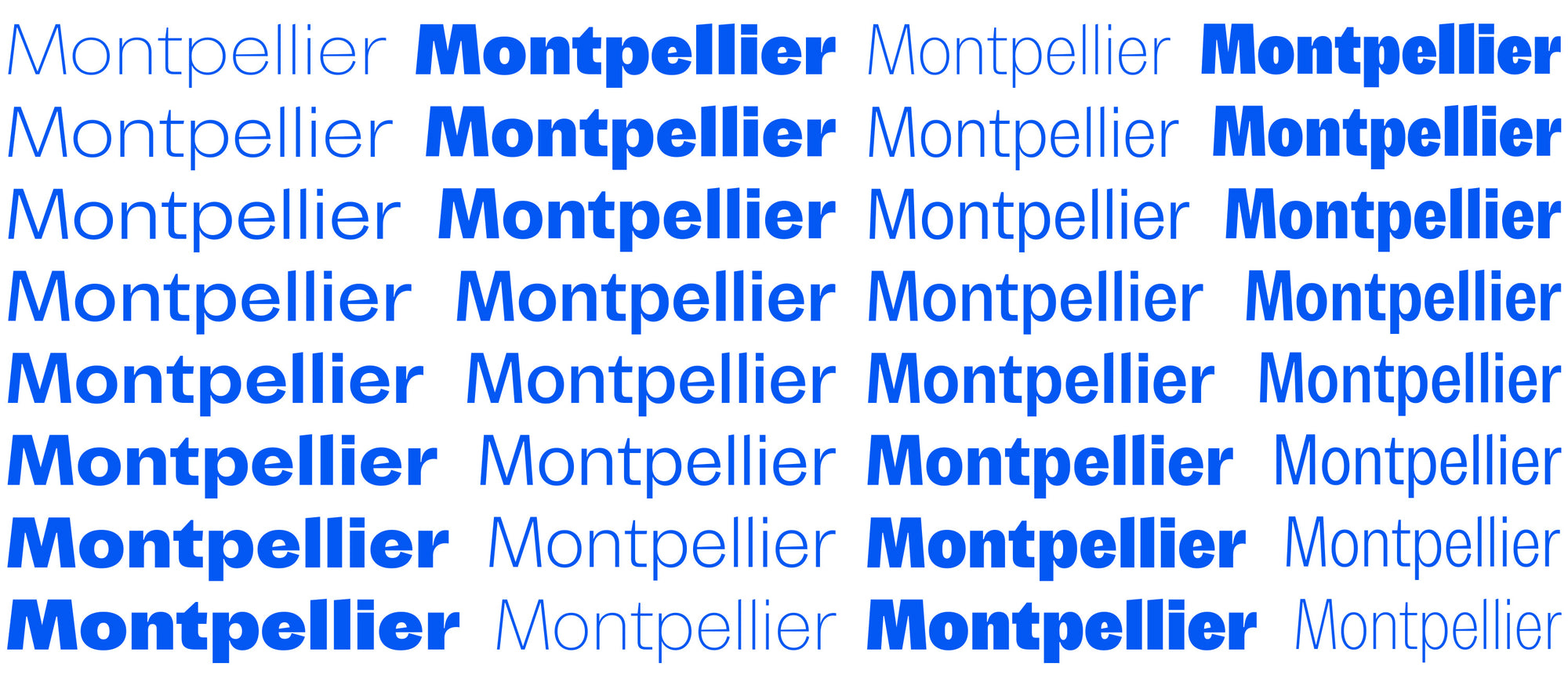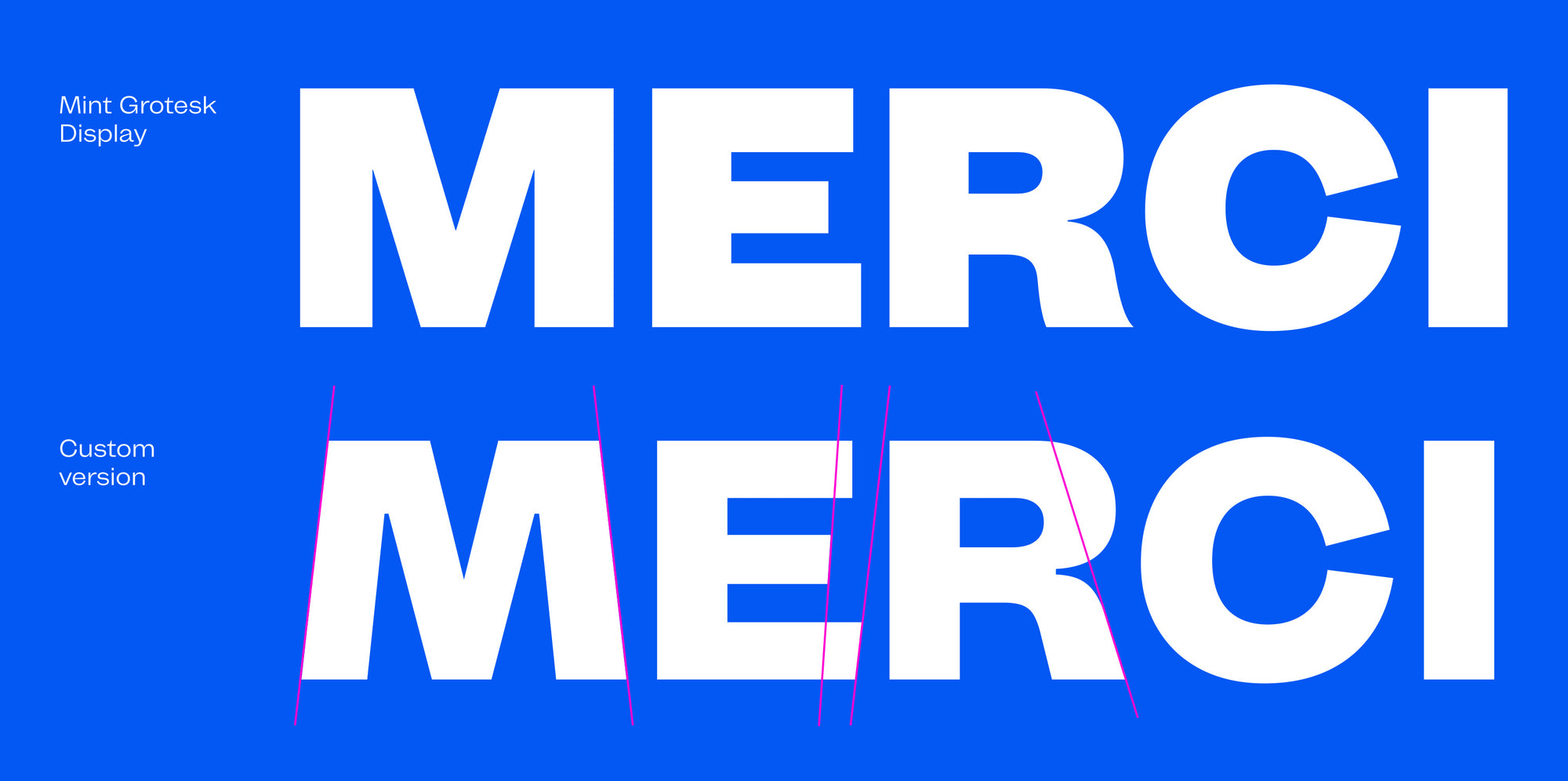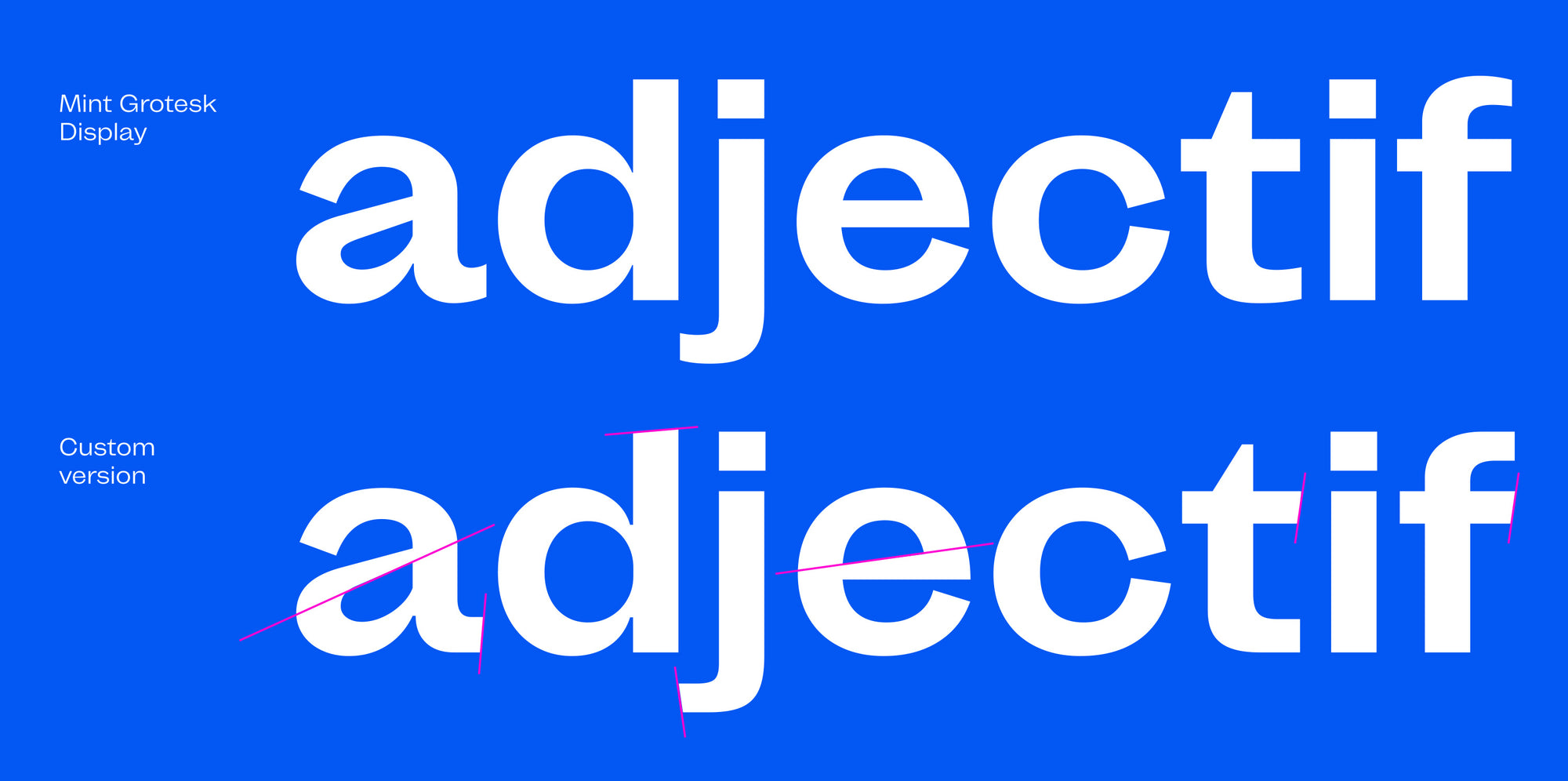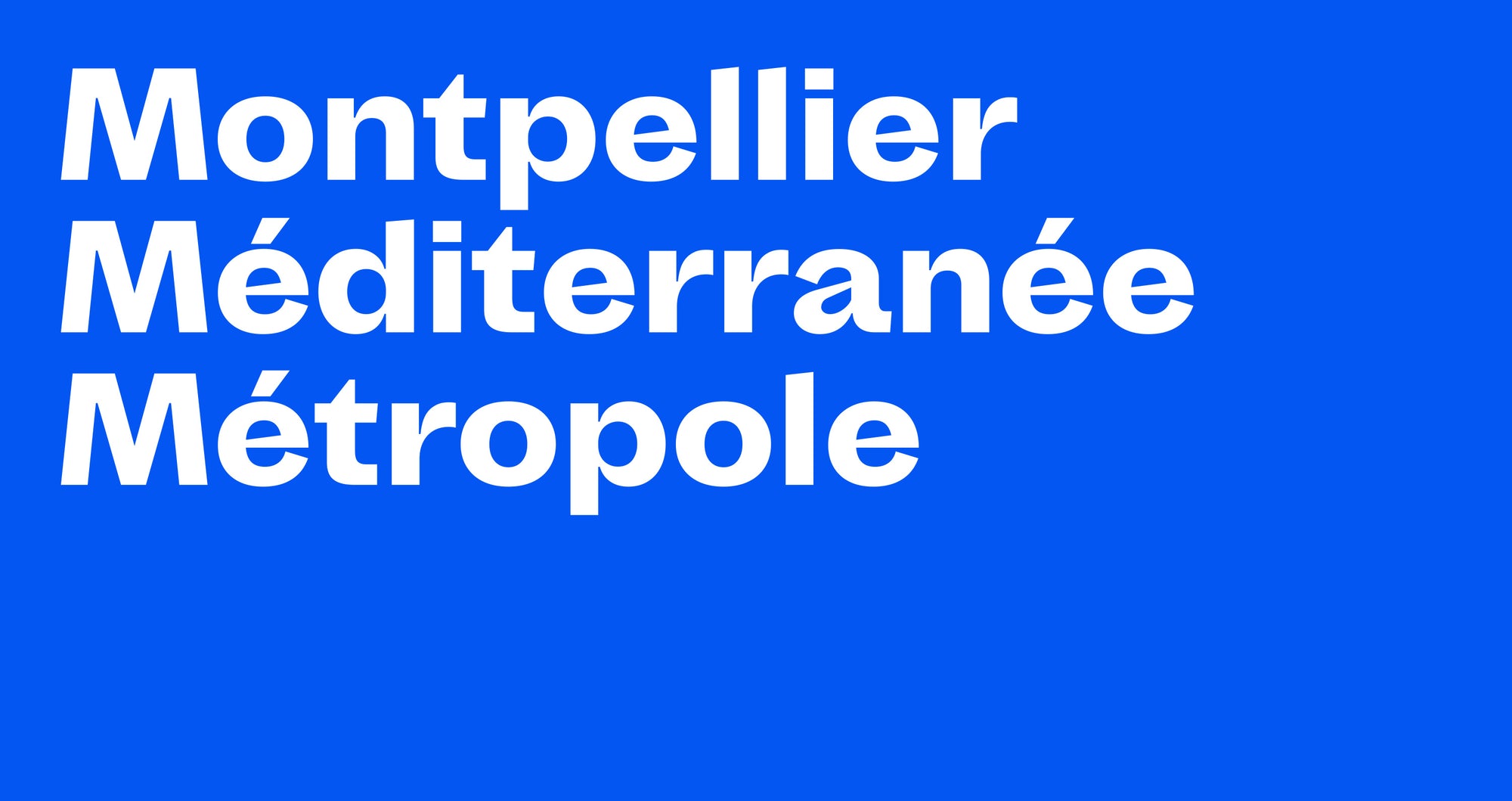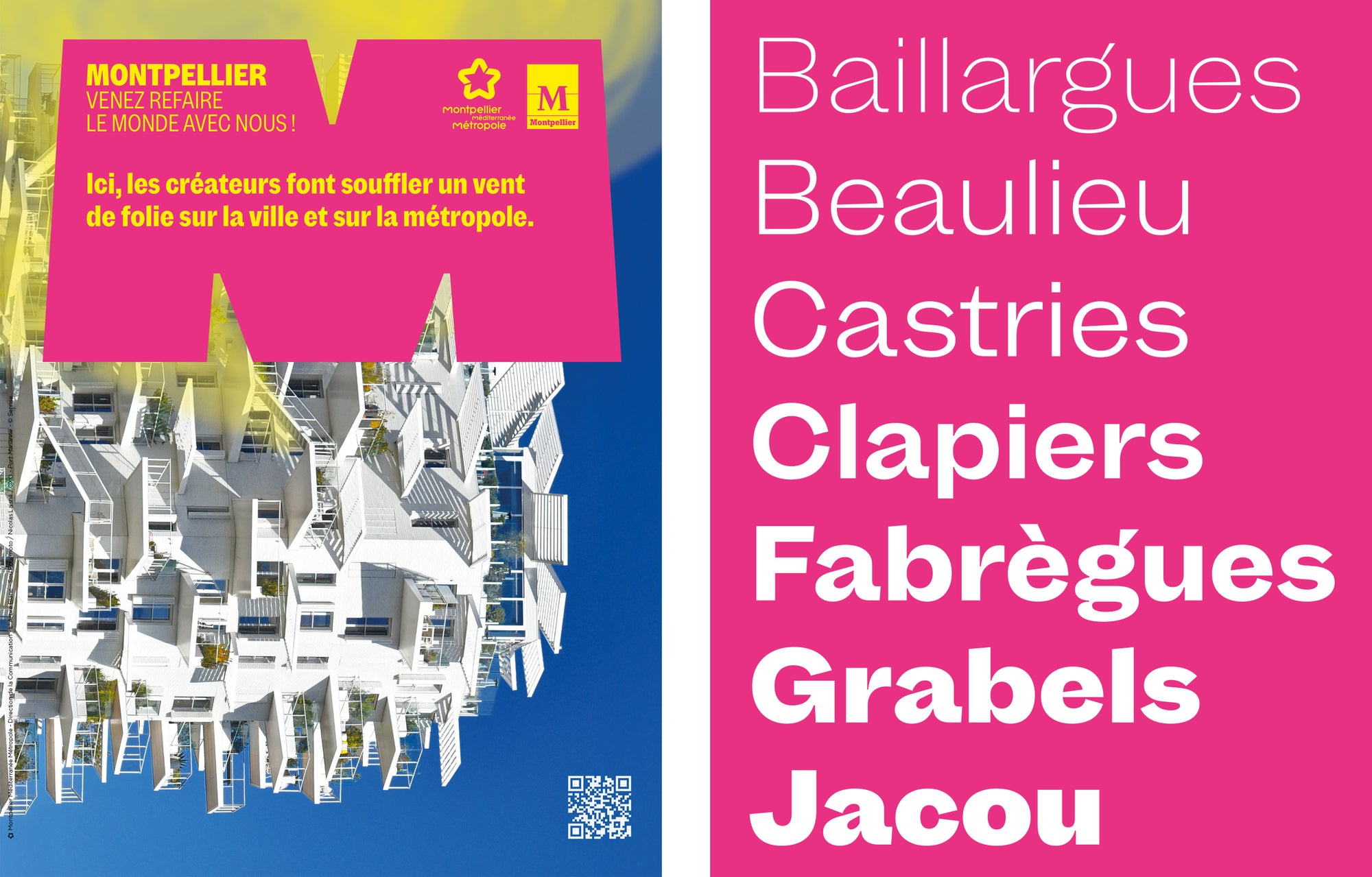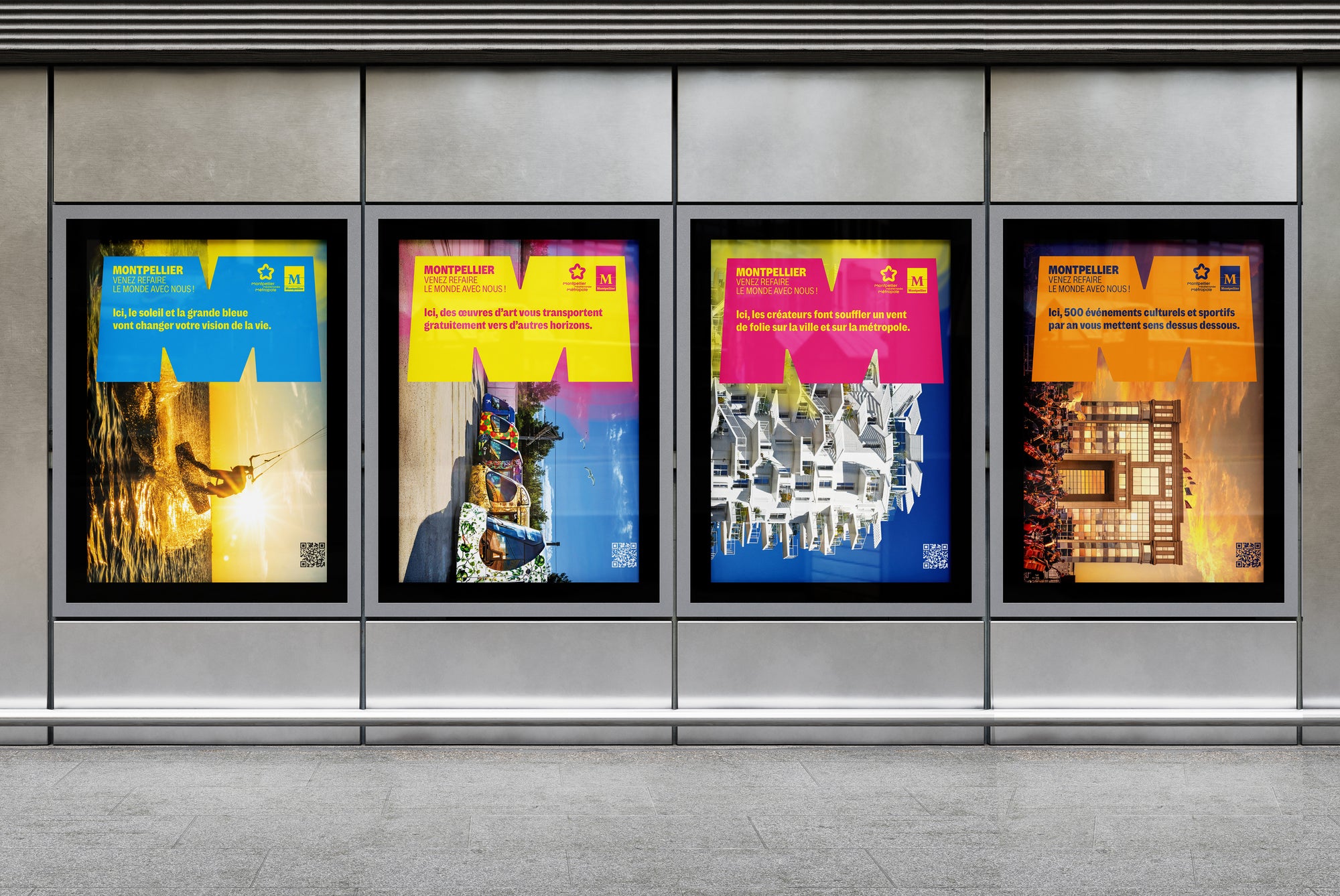
Montpellier Métropole
Custom version of Mint Grotesk
In 2024, we designed a custom typeface for the communication of Montpellier Méditerranée Métropole. The project builds on Mint Grotesk, a typeface from our catalogue created by Sébastien Sanfilippo, valued for its clarity and strong personality.
We preserved its original intent while introducing graphic refinements tailored to the specific needs of the metropolitan identity: enhanced contrast, sharper shapes, and a more assertive visual presence.
The most striking transformation is the capital M, now with outward-slanting stems. Other subtler changes contribute to the overall tone: diagonal stroke endings on ascenders, tightened letterforms, and carefully adjusted curves.
To support the Métropole’s wide range of communication materials, the typeface was also developed in a condensed version and as a variable font, providing greater flexibility and adaptability across formats.
→ Custom Typeface for Montpellier Méditerranée Métropole
Based on Mint Grotesk — originally designed by Sébastien Sanfilippo